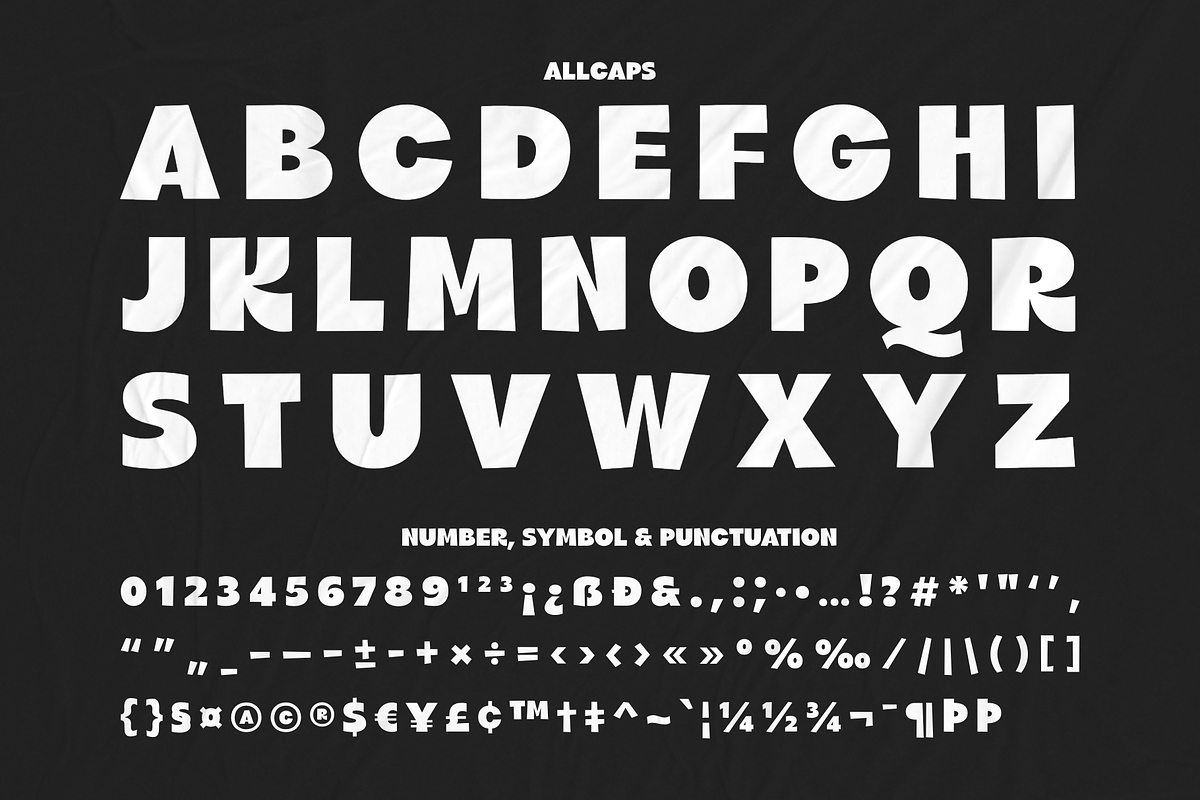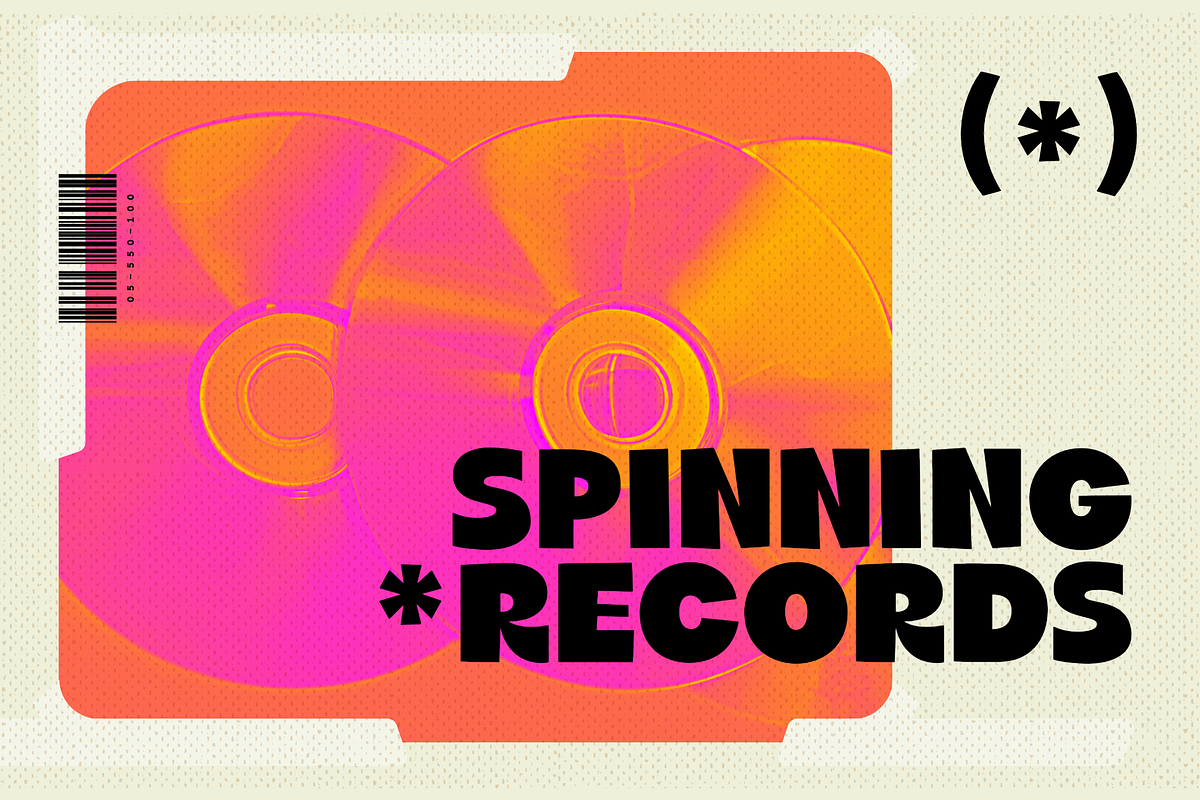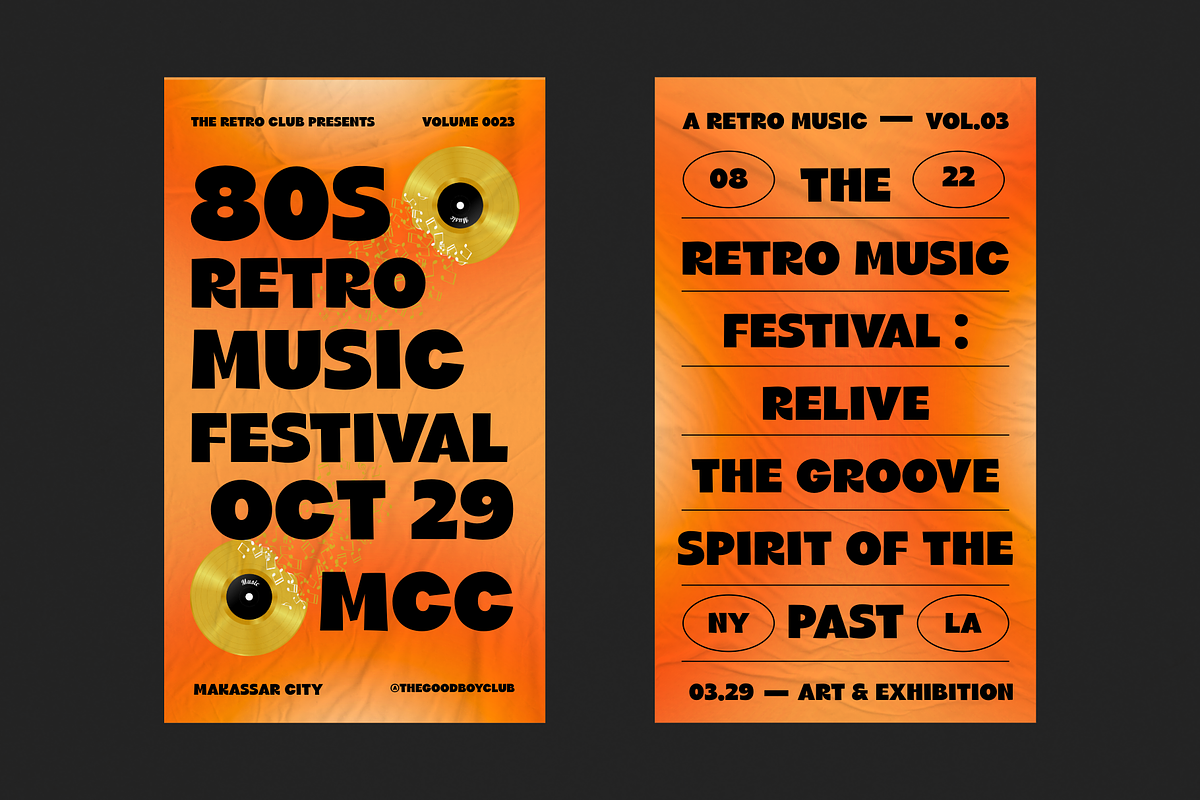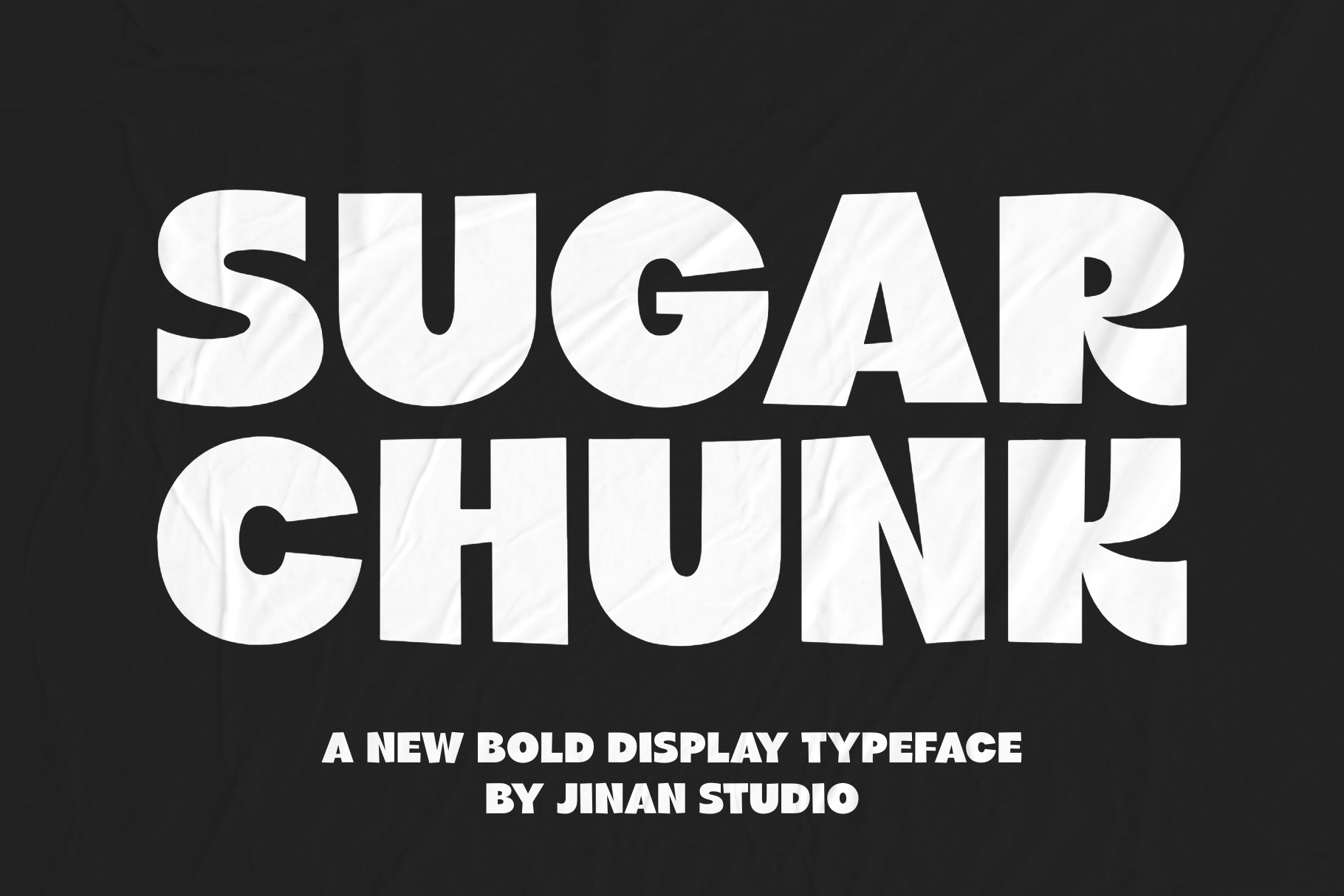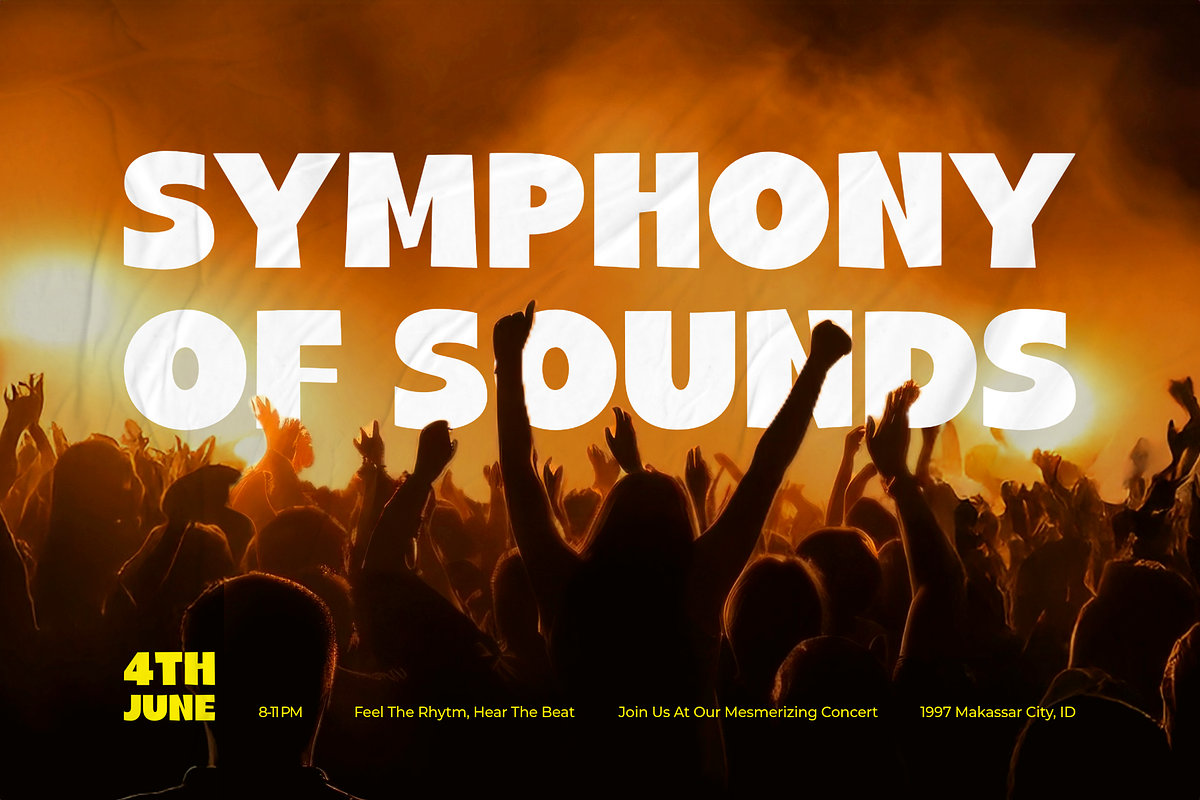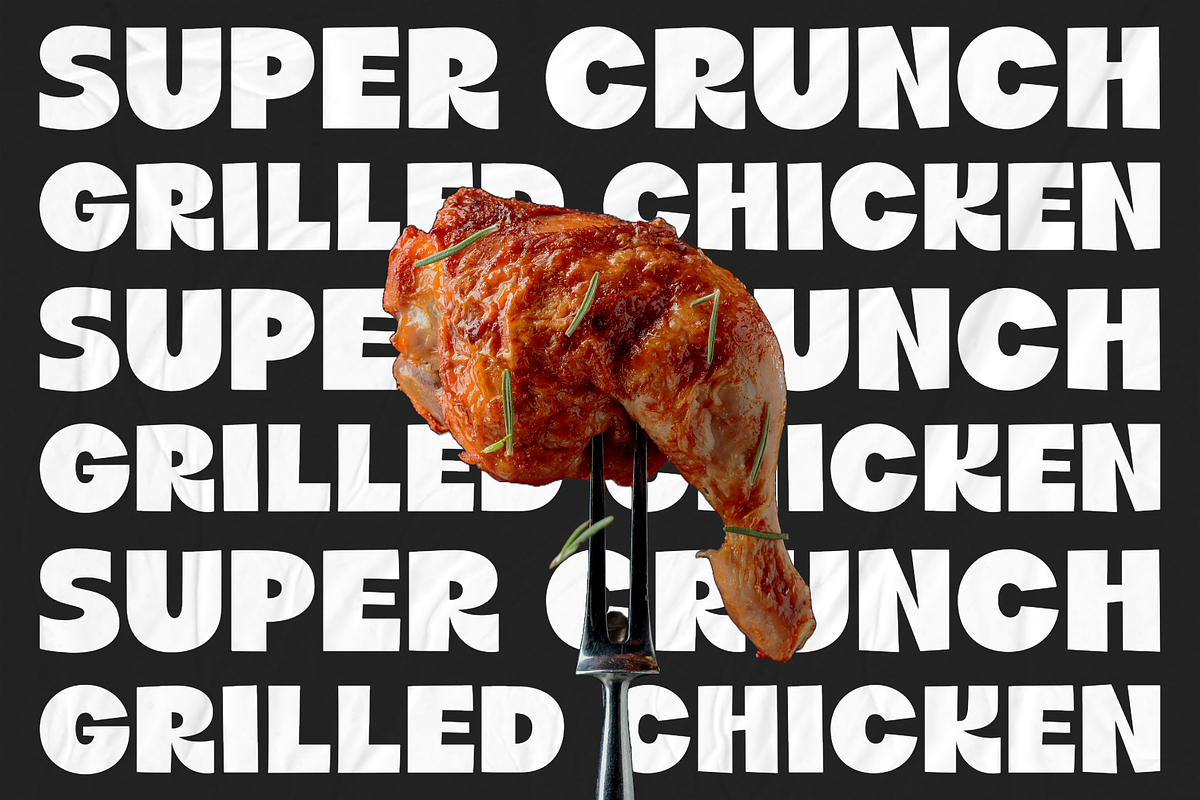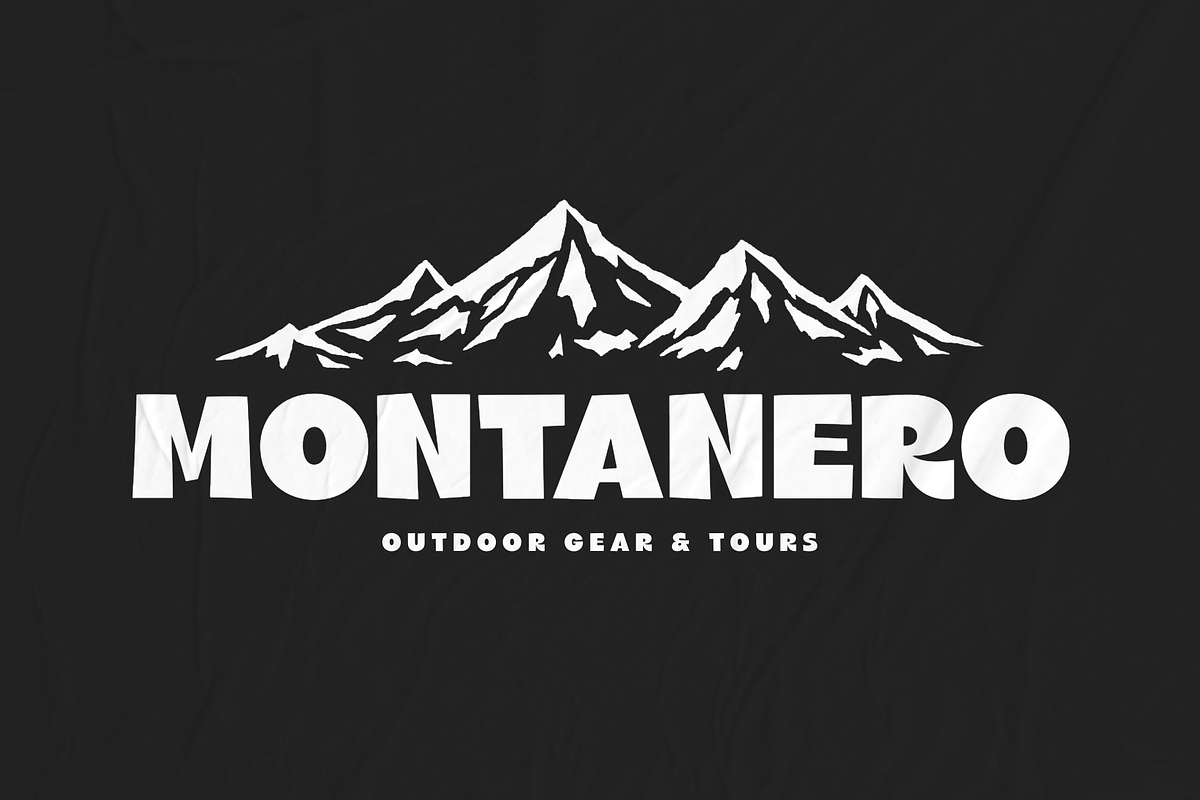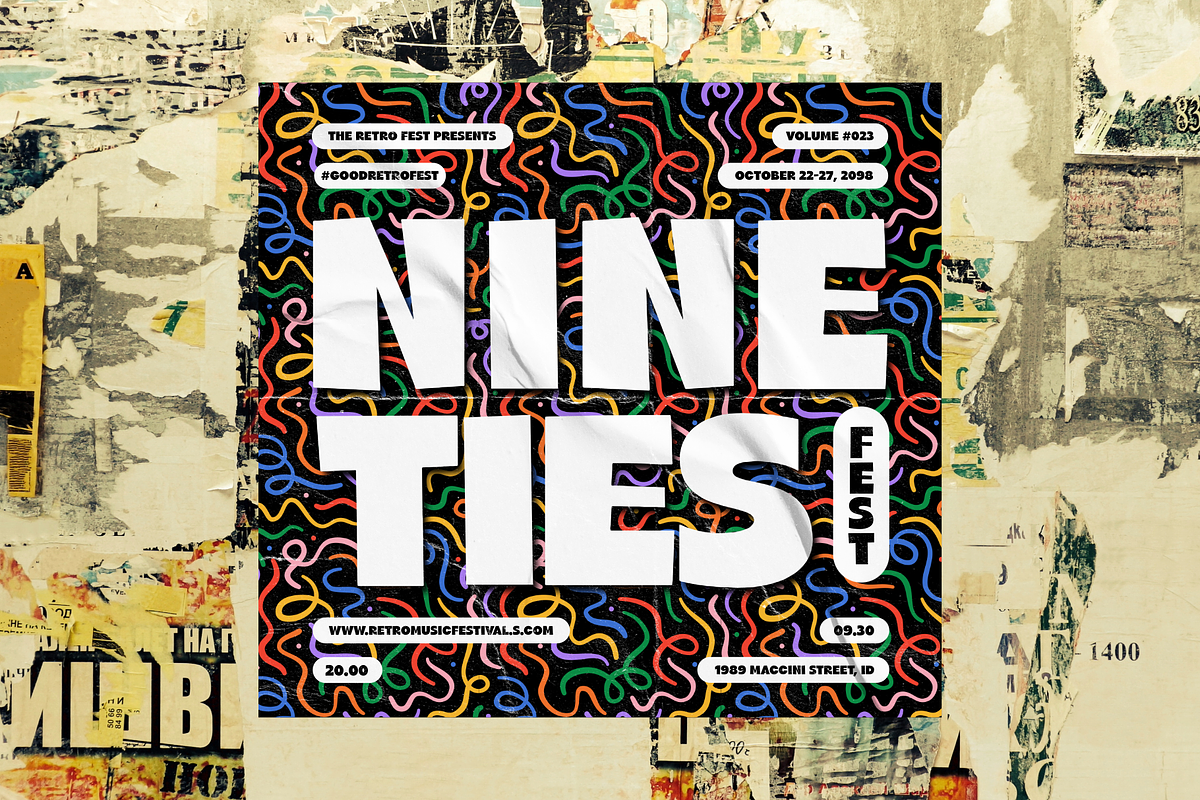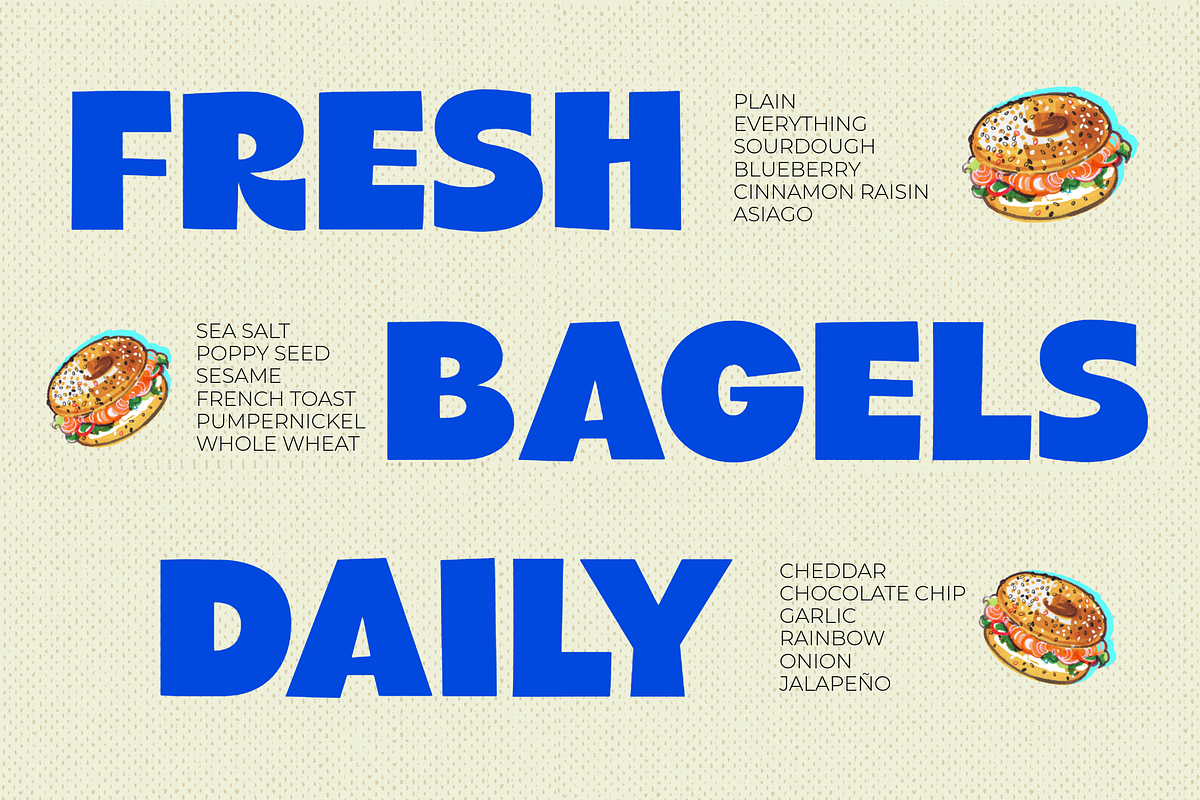
Sugar Chunk - A Bold Display Font
Sugar Chunk is a bold and playful display typeface that bursts with retro charm and chunky personality. Its heavy, blocky letterforms and bold, tapered cuts give it a strong, confident presence — perfect for attention-grabbing headlines, logos, posters, and packaging. Whether you’re aiming for a nostalgic 70s vibe or a modern quirky look, Sugar Chunk adds a delicious dose of character to any project.
- Allcaps
- Number, symbol, and punctuation